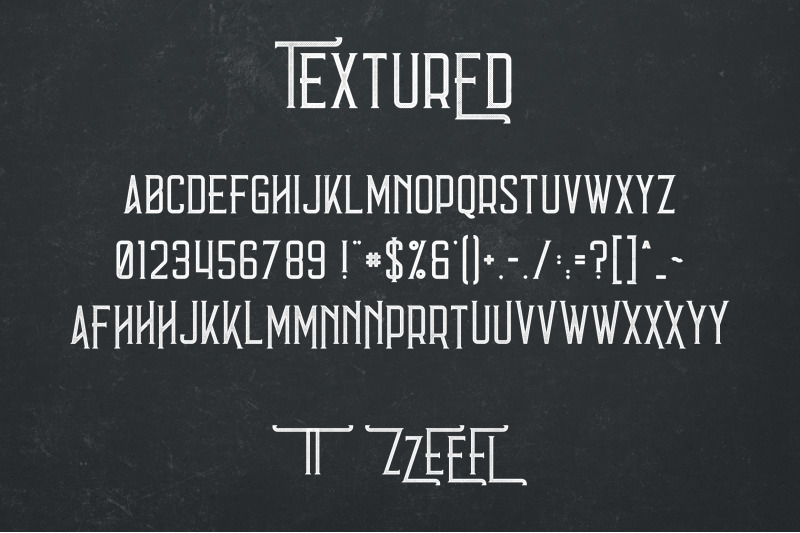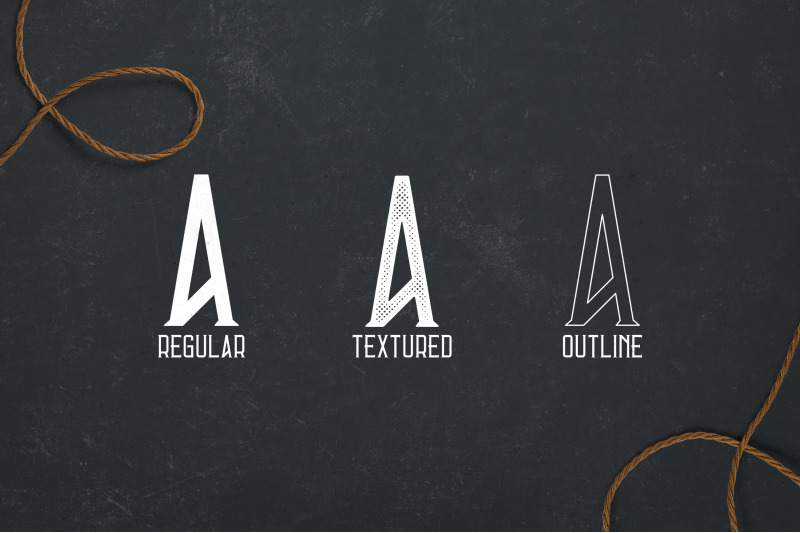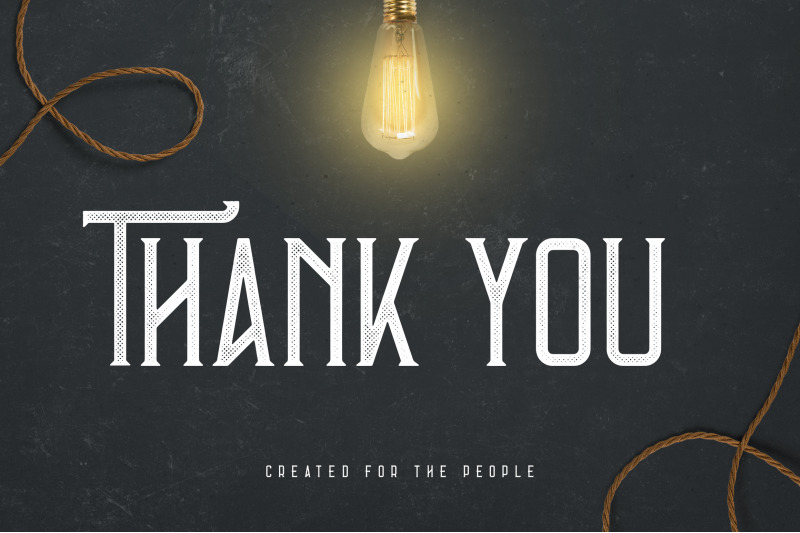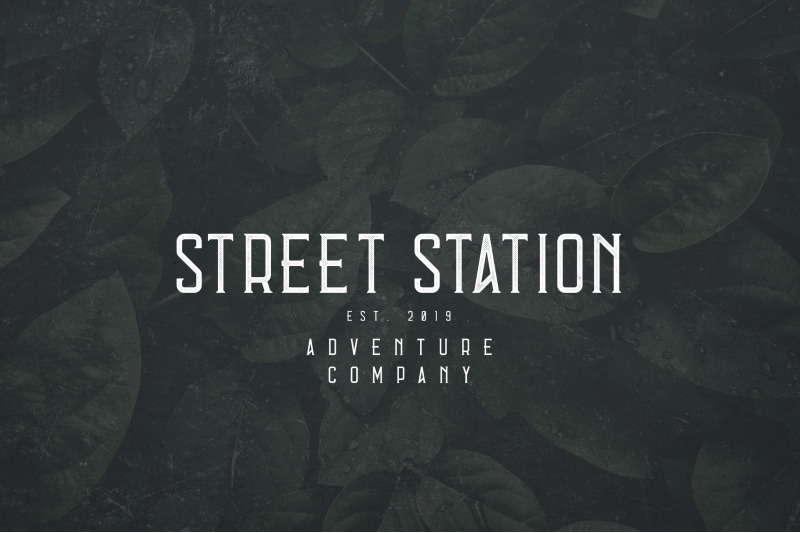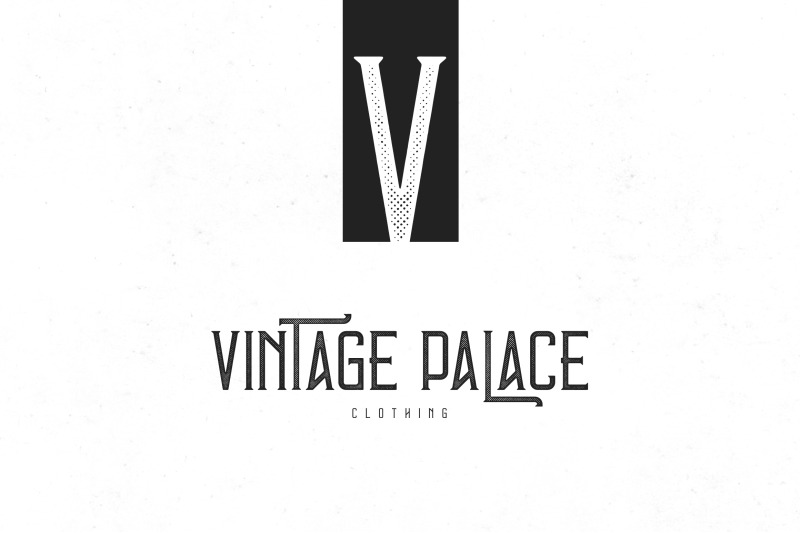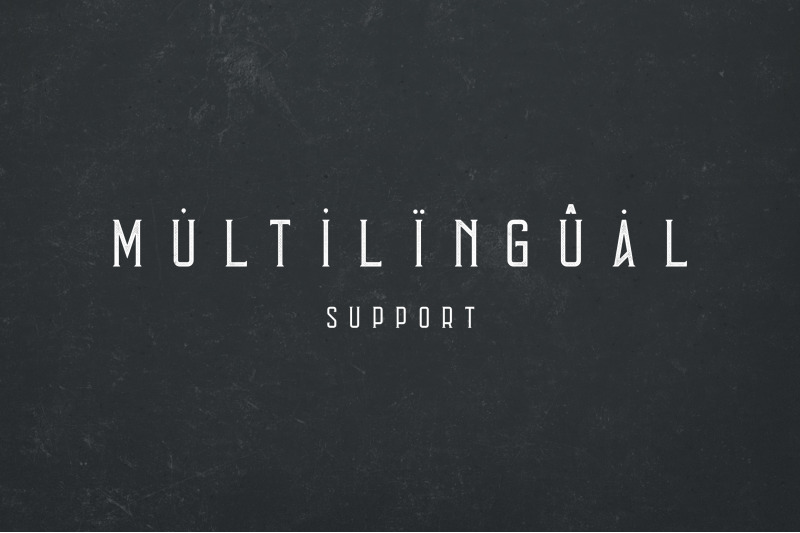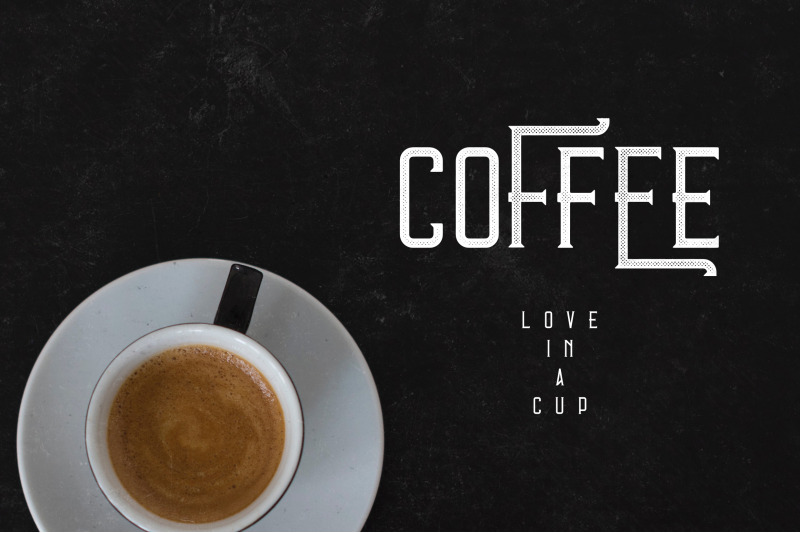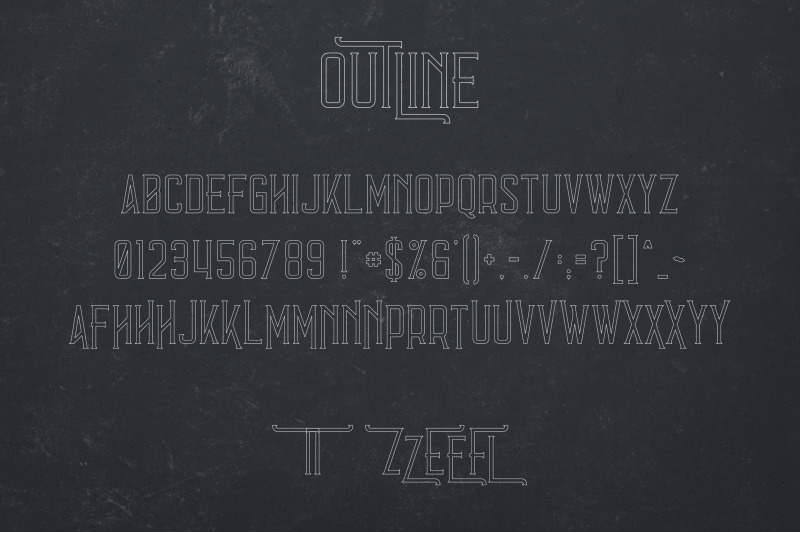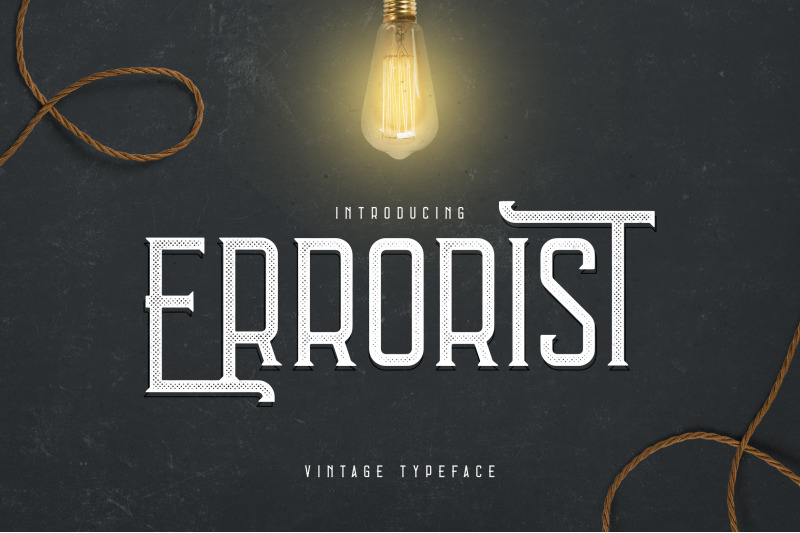
Errorist - Vintage Typeface
Introducing Errorist - Vintage Typeface - 3 styles Errorist is long, vintage typeface with 3 styles, tons of alternative glyphs and multilingual support. It's a very versatile font that works great in large and small sizes. Errorist is perfect for branding projects, home-ware designs, product packaging, magazine headers - or simply as a stylish text overlay to any background image. Uppercase,lowercase, numeral,punctuation & Symbol Regular Outline Textured Tons of alternative glyphs Multilingual support Feel free to contact me if you have any questions! Mock ups and backgrounds used are not included! Thank you! Enjoy!